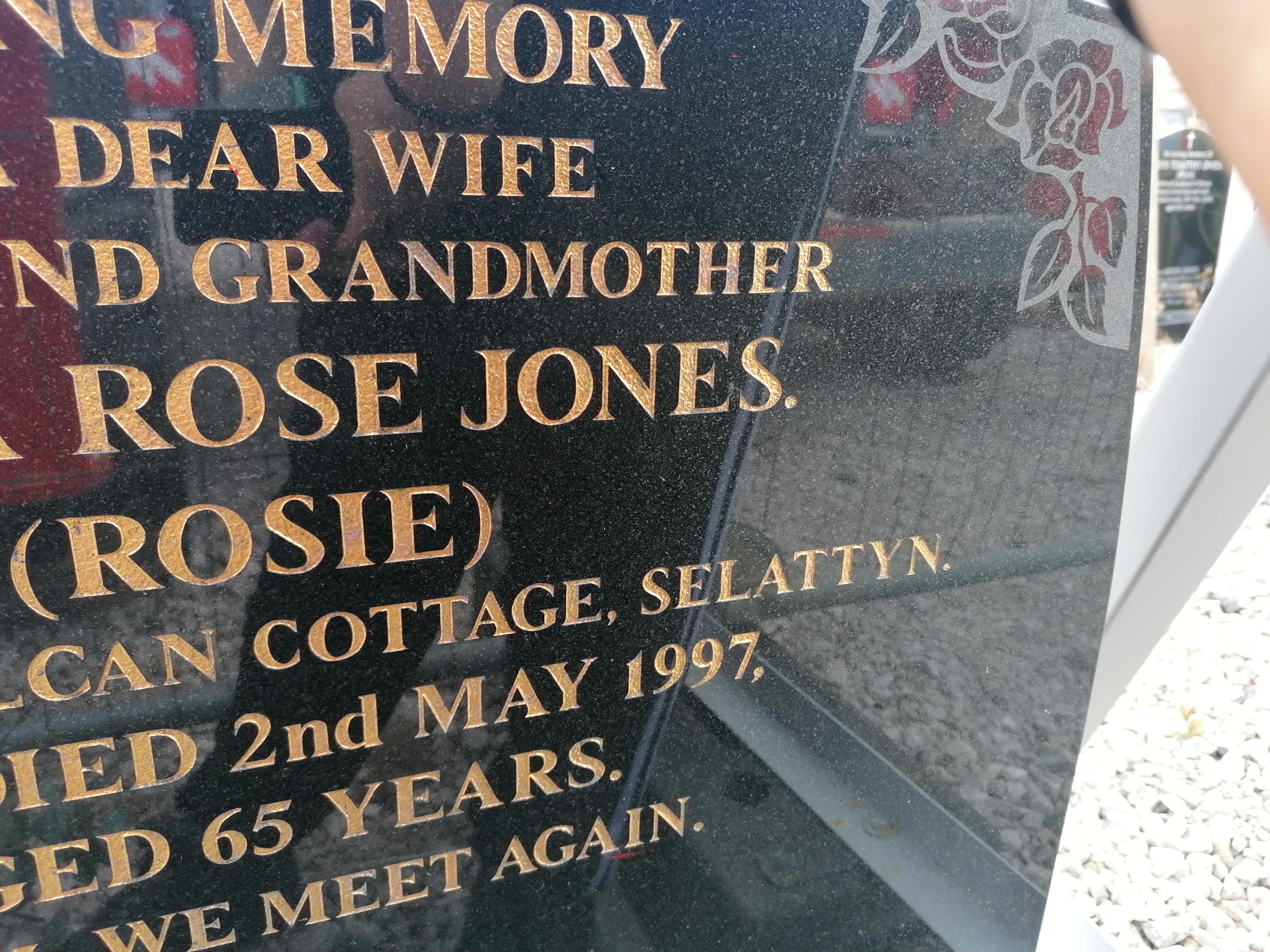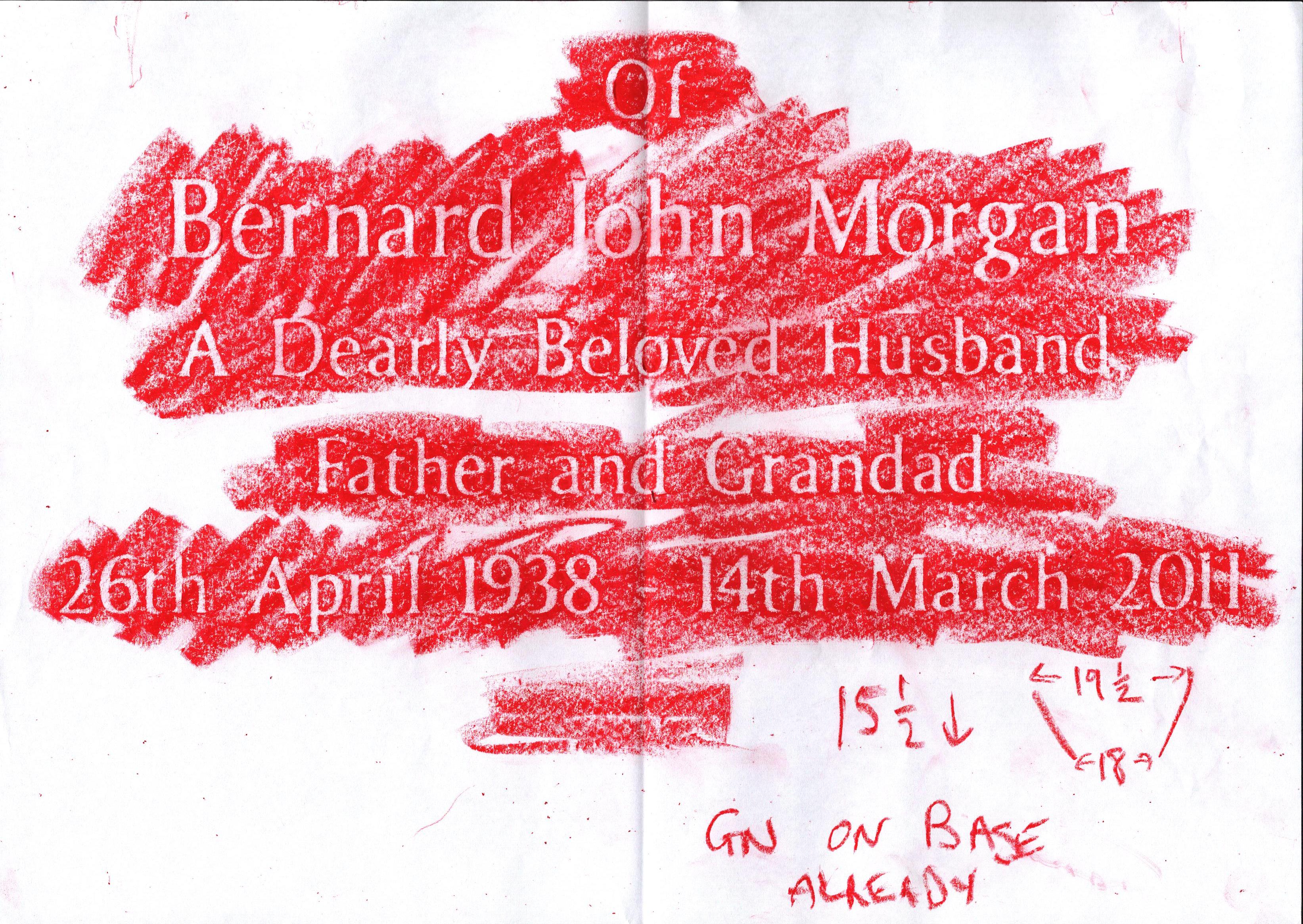
ParticipantI am still looking for this font but I can’t find it anywhere, I find some that have similar styles but looking for similar or related fonts draws a blank
ParticipantHi Torrey, this font has features of Caslon, probably Caslon Five Swash for the initial letters and Caslon Five Italic for for rest of the letters is where I would start
ParticipantHi Jill, that looks quite like the Bookman font family, I have also seen it called Book or Bookmania
The inscription for the names and birth dates looks like Mythica but the date of death for MORTON F. is different so was probably added later
ParticipantJust an update: the rest of the font seems to match very well with Nimbus Roman D
Just need to round the serifs to make it look like it was cut out on an old machine and tweak each of those g’s
That looks like Caxton, either Book or Bold. The numbers look thin like Caxton Book but the name looks thick like Caxton Bold
ParticipantI think this looks like Marathon Serial
ParticipantAs an update – I found the letter shapes to match Mentor very closely, both Serif and Sans Serif versions of the font, but this seems to be an in-between version. The flared serifs don’t match either font, so it seems someone has adapted it to create some kind of Semi-serif variation.